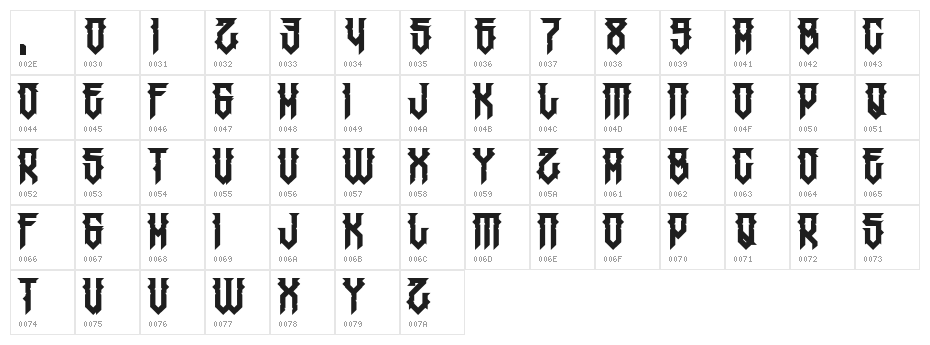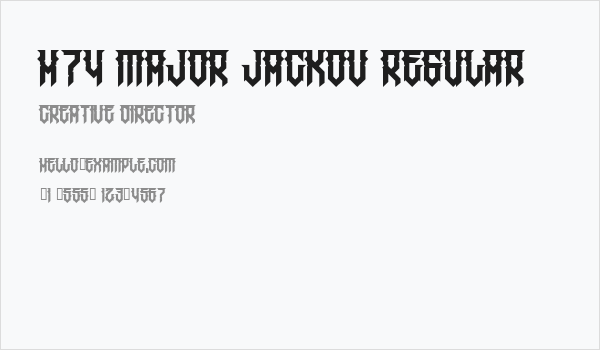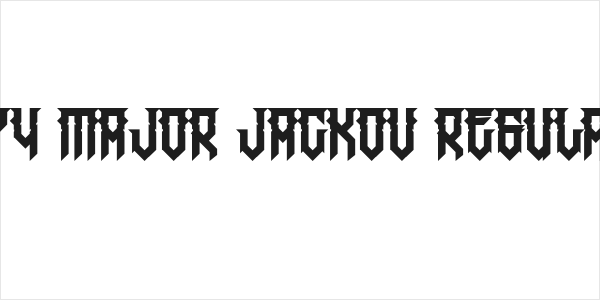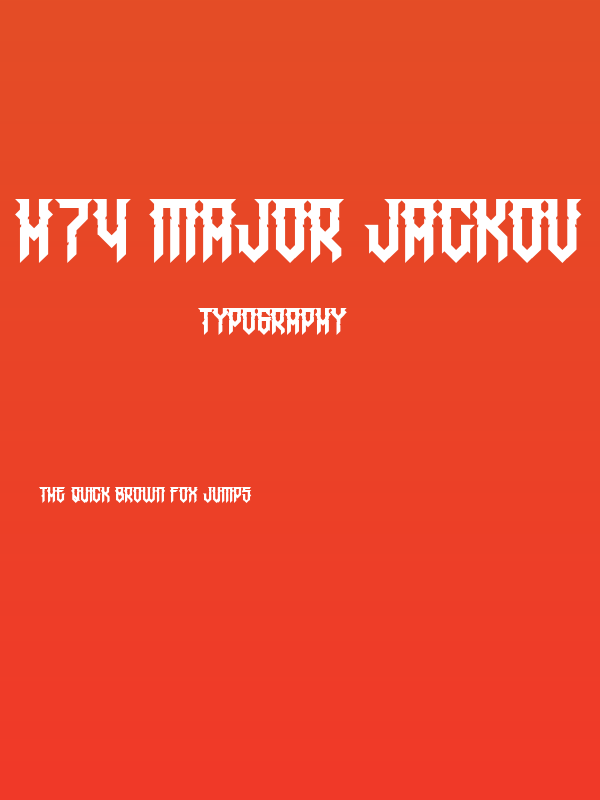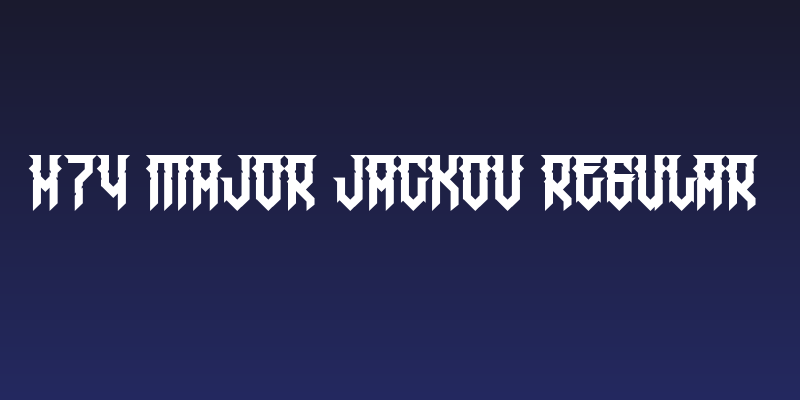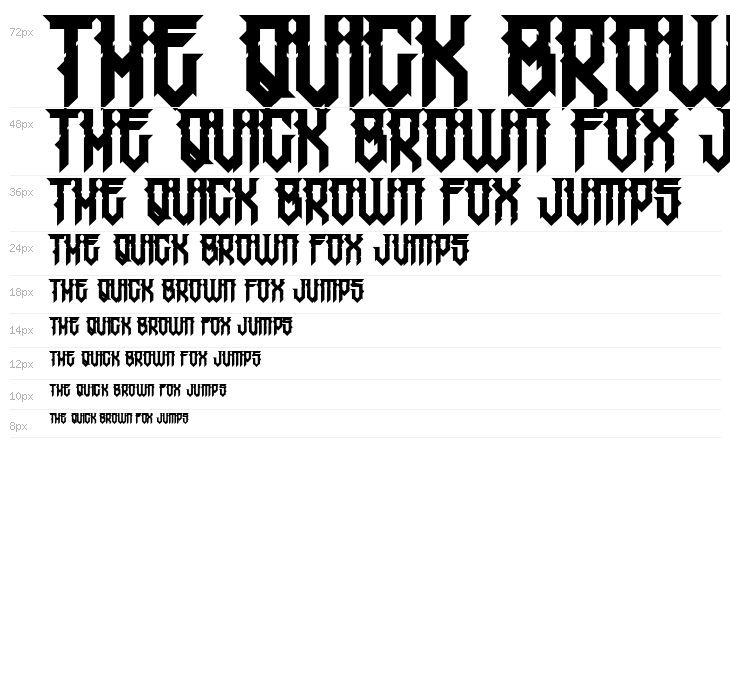
H74 Major Jackov Regular Font
H74 Major Jackov Regular Description
This font features a bold, angular design with sharp edges and a geometric structure. The characters are heavily stylized, with a distinct, aggressive appearance that suggests a futuristic or industrial theme. The uppercase and lowercase letters maintain a consistent height, contributing to a uniform look across the text. The numbers and special characters follow the same design principles, ensuring cohesion throughout. The font's unique style makes it stand out, ideal for projects that require a strong visual impact.
| Proposed Projects | Ideal for video game titles, movie posters, branding for tech companies, or any project needing a strong, impactful visual style. |